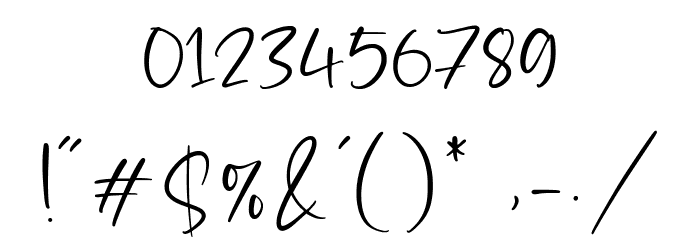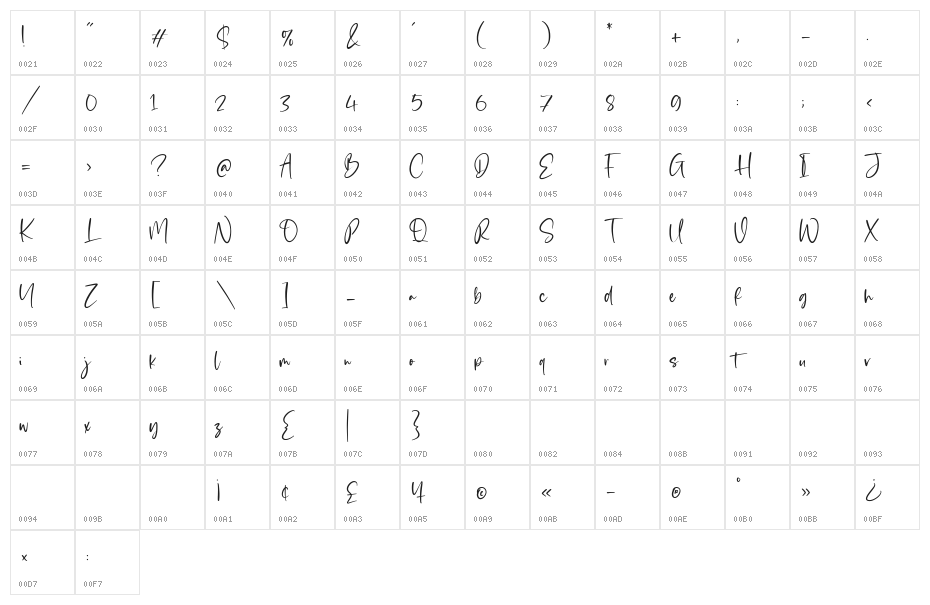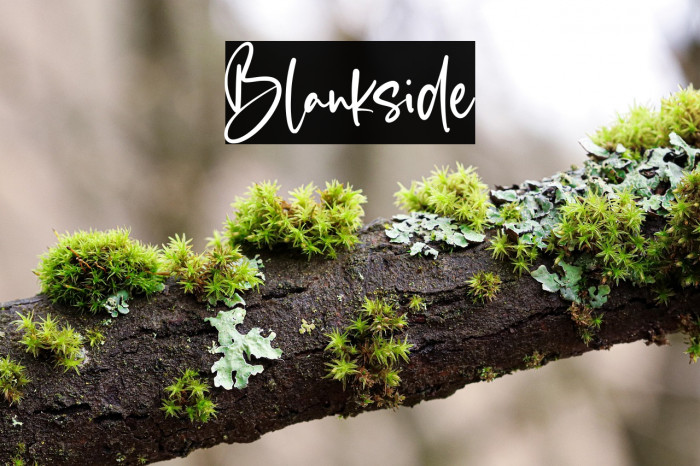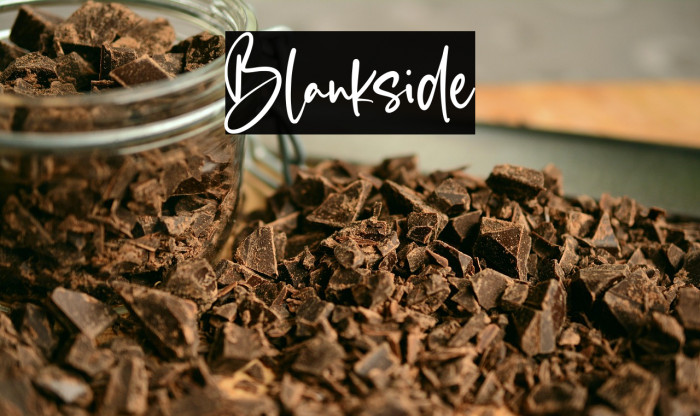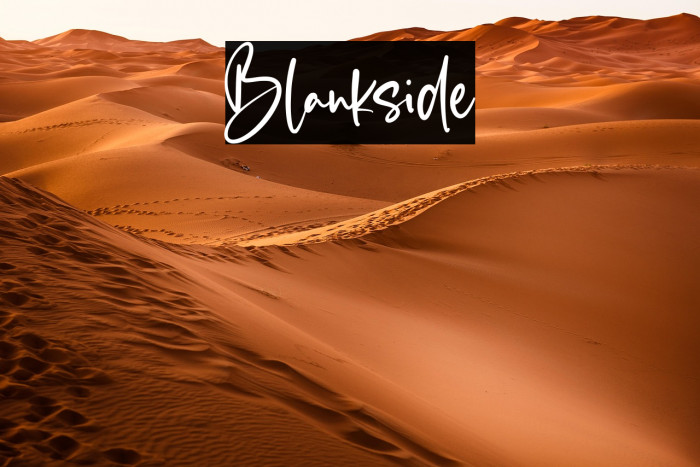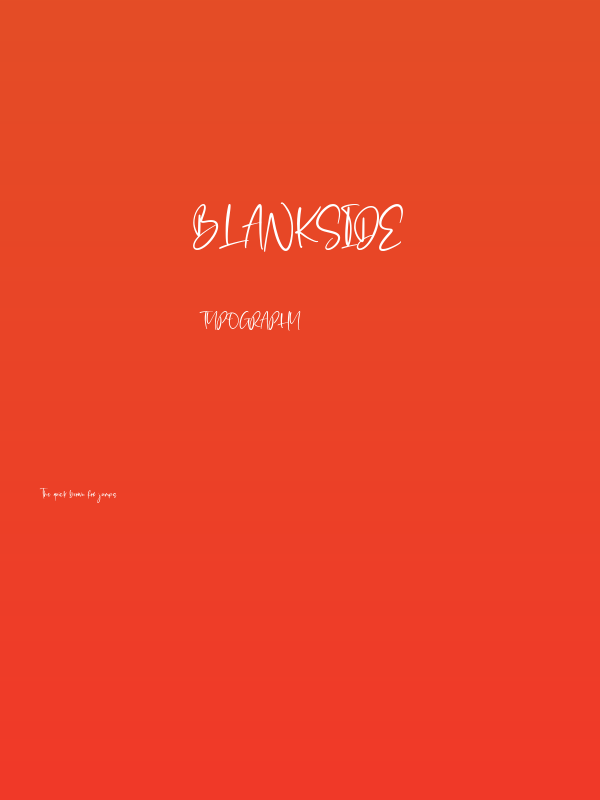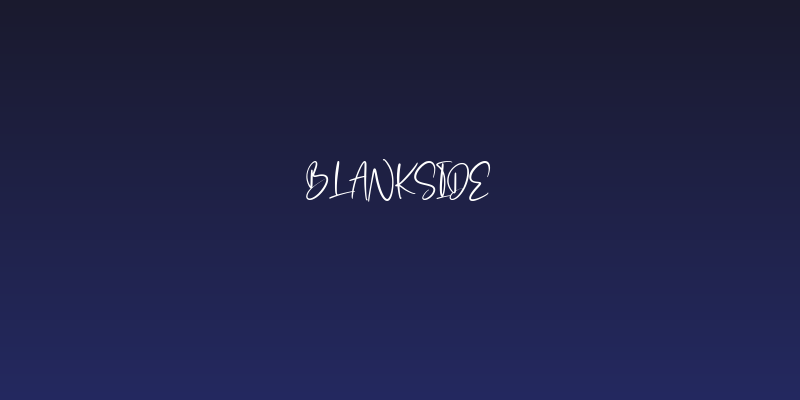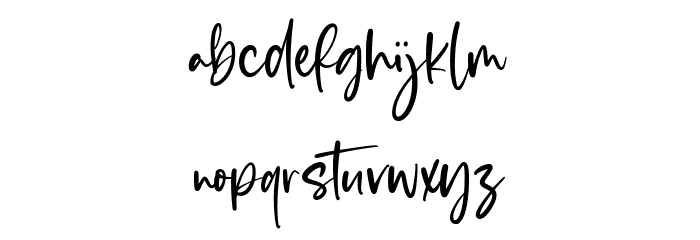
Blankside Font
Blankside Description
This font features a dynamic and expressive handwritten style, characterized by its fluid and irregular strokes that mimic natural handwriting. The uppercase letters are bold and slightly slanted, giving an energetic and casual feel. Lowercase letters maintain a consistent flow, enhancing readability while preserving a personal touch. The numerals are clear and distinct, matching the playful yet sophisticated aesthetic of the letters. Special characters are crafted with the same attention to detail, ensuring a cohesive look across all glyphs. This font's unique style makes it suitable for projects that require a personal and approachable tone.
| Overall Style | Casual, Expressive |
| Proposed Projects | Ideal for greeting cards, personal branding, social media graphics, and creative projects that require a personal touch. |